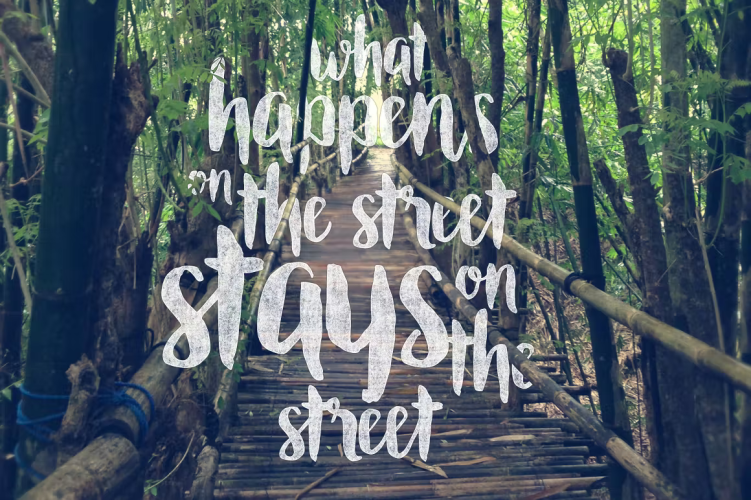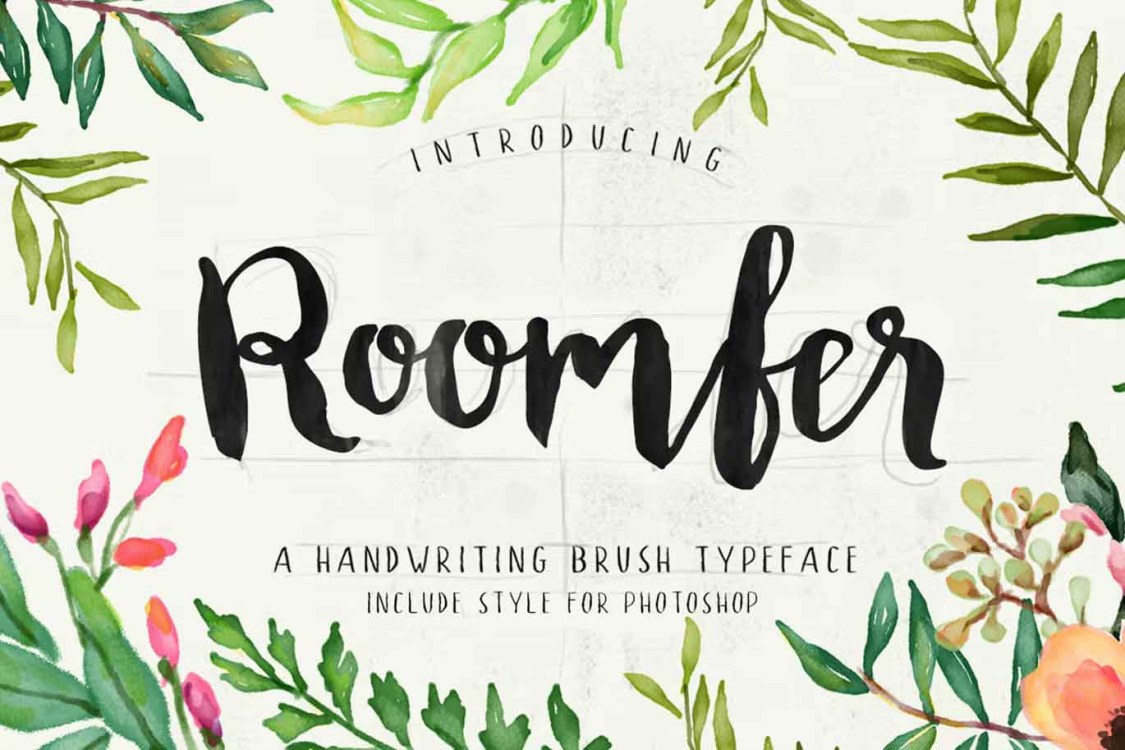
Roomfer font Style Photoshop
Present Roomfer font bold handwriting style brush. unique case characters, fun and different fonts, particularly suitable for designs that have a concept of relaxed and…
Present Roomfer font bold handwriting style brush. unique case characters, fun and different fonts, particularly suitable for designs that have a concept of relaxed and not so serious. These fonts are also supported by international characters.
Roomfer font is suitable for use as the title text, logotype, hand drawing design concept, wedding invitations name etc.
Where Roomfer font Style Photoshop works best
Roomfer font Style Photoshop brings a personal, handwritten warmth to invitations, menus and place cards.
Craft brands — coffee, cosmetics, bakery — use scripts like Roomfer font Style Photoshop for signature-style logos and labels.
Pair Roomfer font Style Photoshop with a plain sans for quotes, stories and Pinterest pins that feel handmade.
What is Roomfer font Style Photoshop good for?
Roomfer font Style Photoshop is a Script And Handwritten typeface tagged Bold, Handwritten, Script, Script And Handwritten. It works well for headlines, logos, posters, social media graphics and branding projects that need a distinctive script and handwritten look.